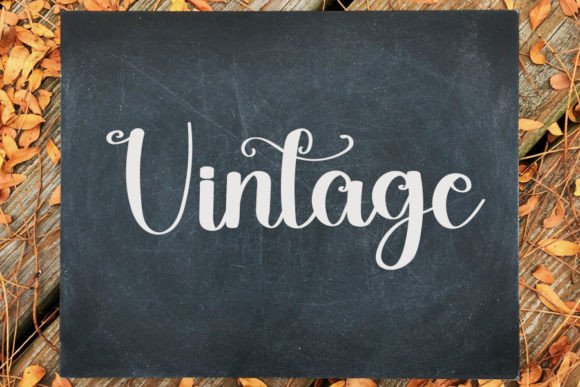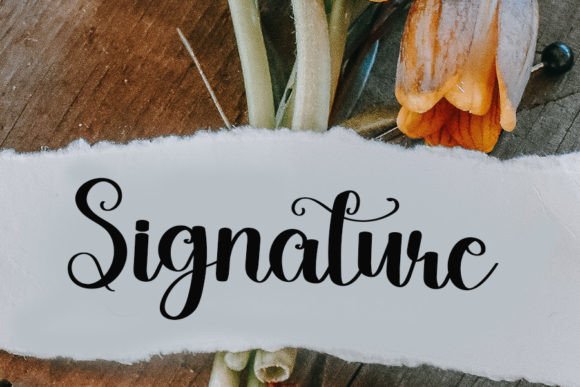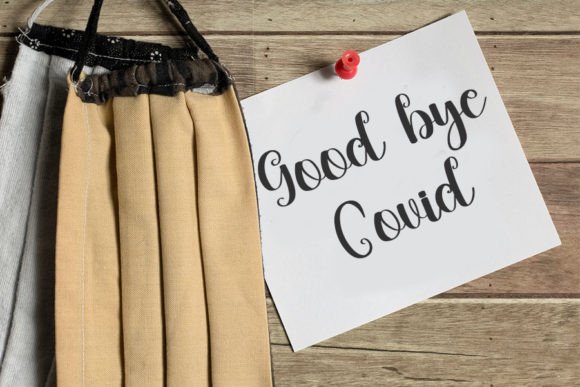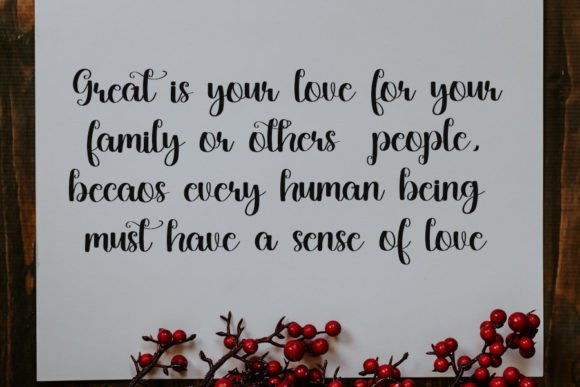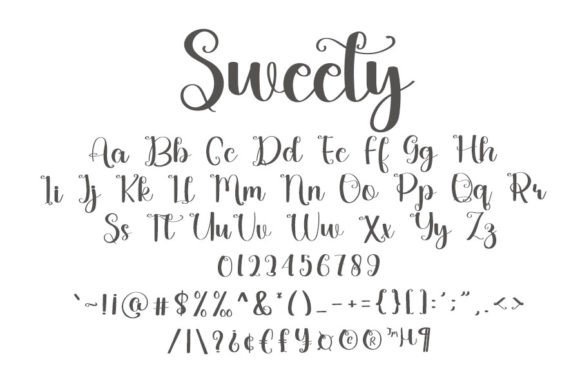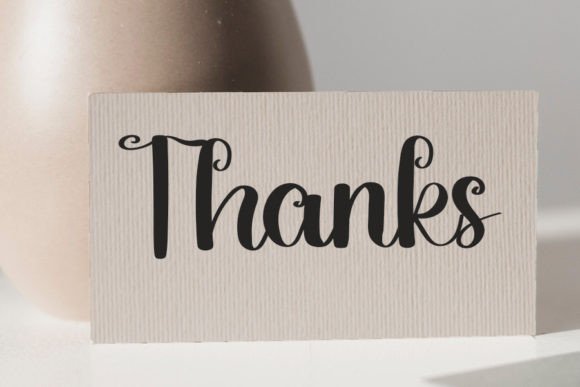
Sweety Font
About Sweety Font
Sweety is a cool handwritten font with a modern vibe and spotless form, inspired by classic calligraphy. Not too thin and not too thick, balanced and varied, this font was designed to enhance the beauty of your projects.